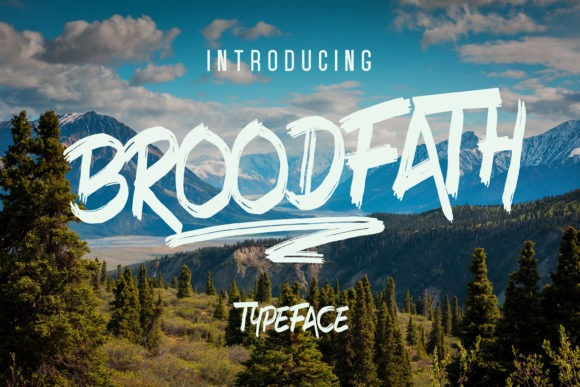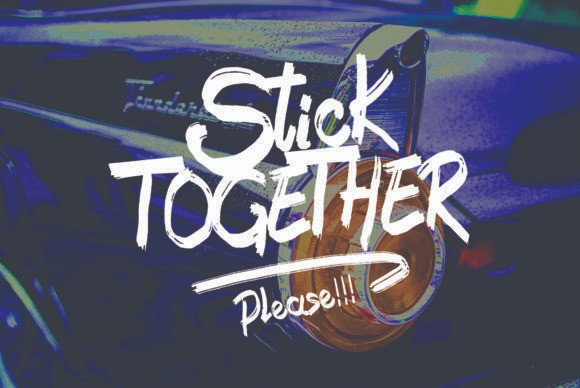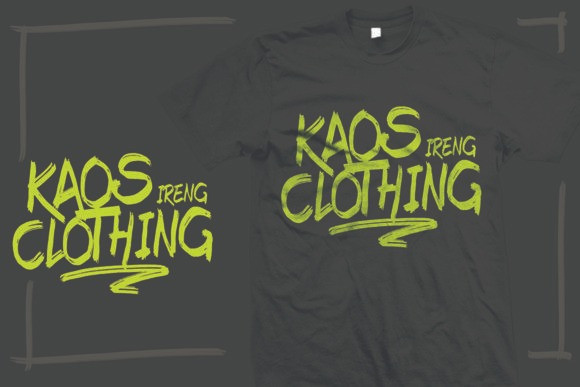
Broodfath Font
Broodfath is a handmade brush style font. It is ideal for logos, name tags, handwritten quotes, product packaging, merchandise, social media & greeting cards. Designing t-shirts and other products will be a piece of cake – easy and time-saving. The files contain a full set of lower & uppercase letters, a large range of punctuation, numerals, and multilingual support.